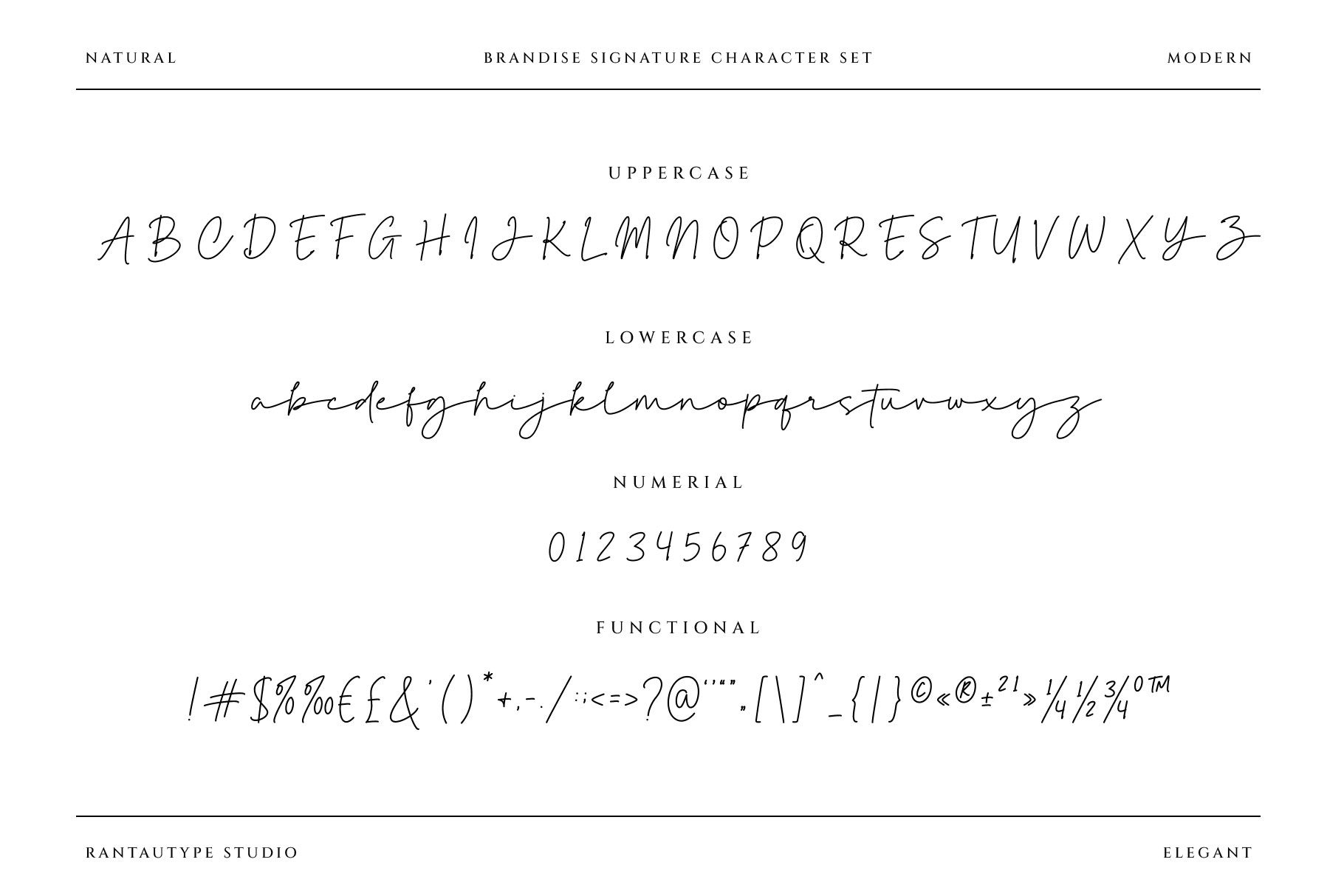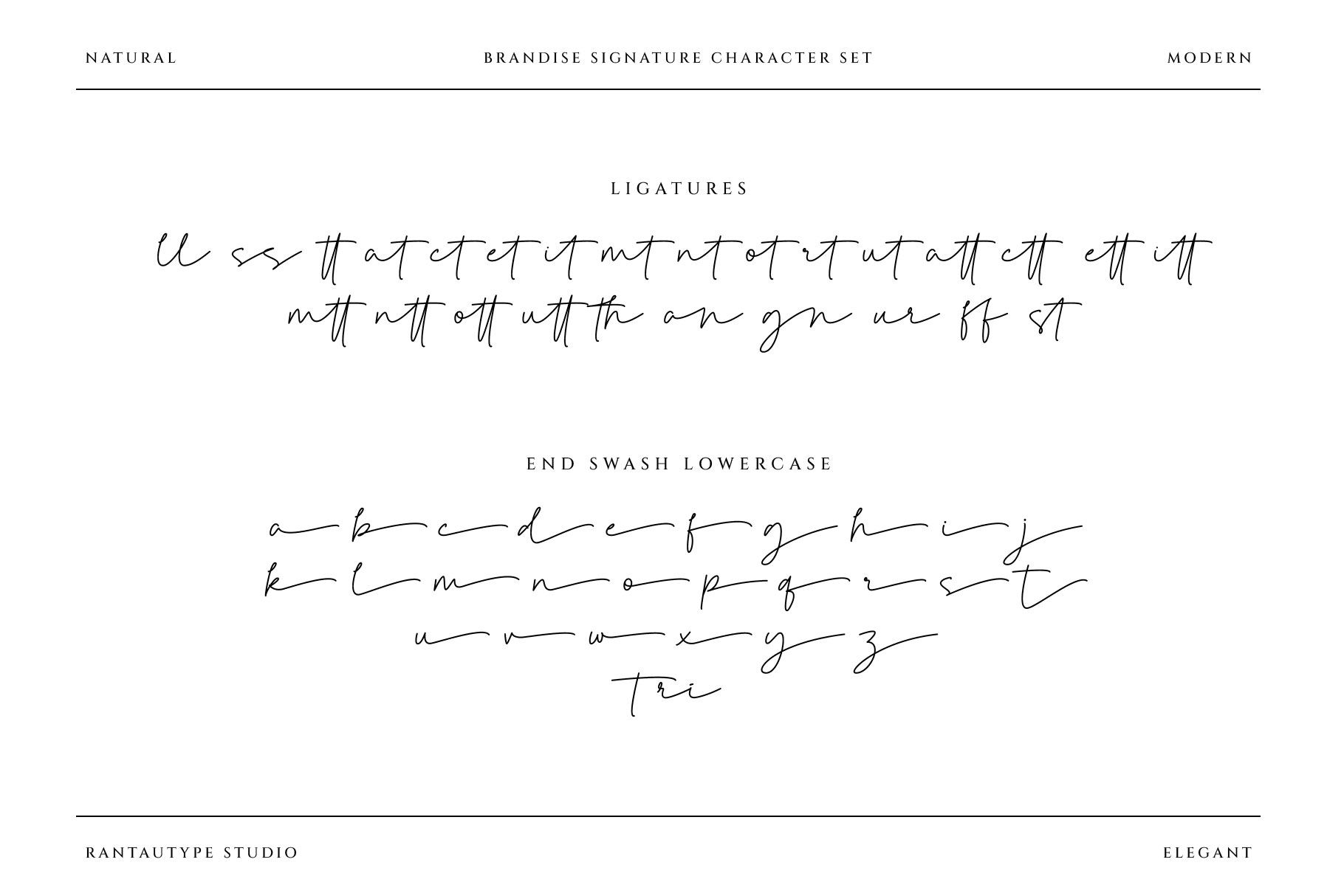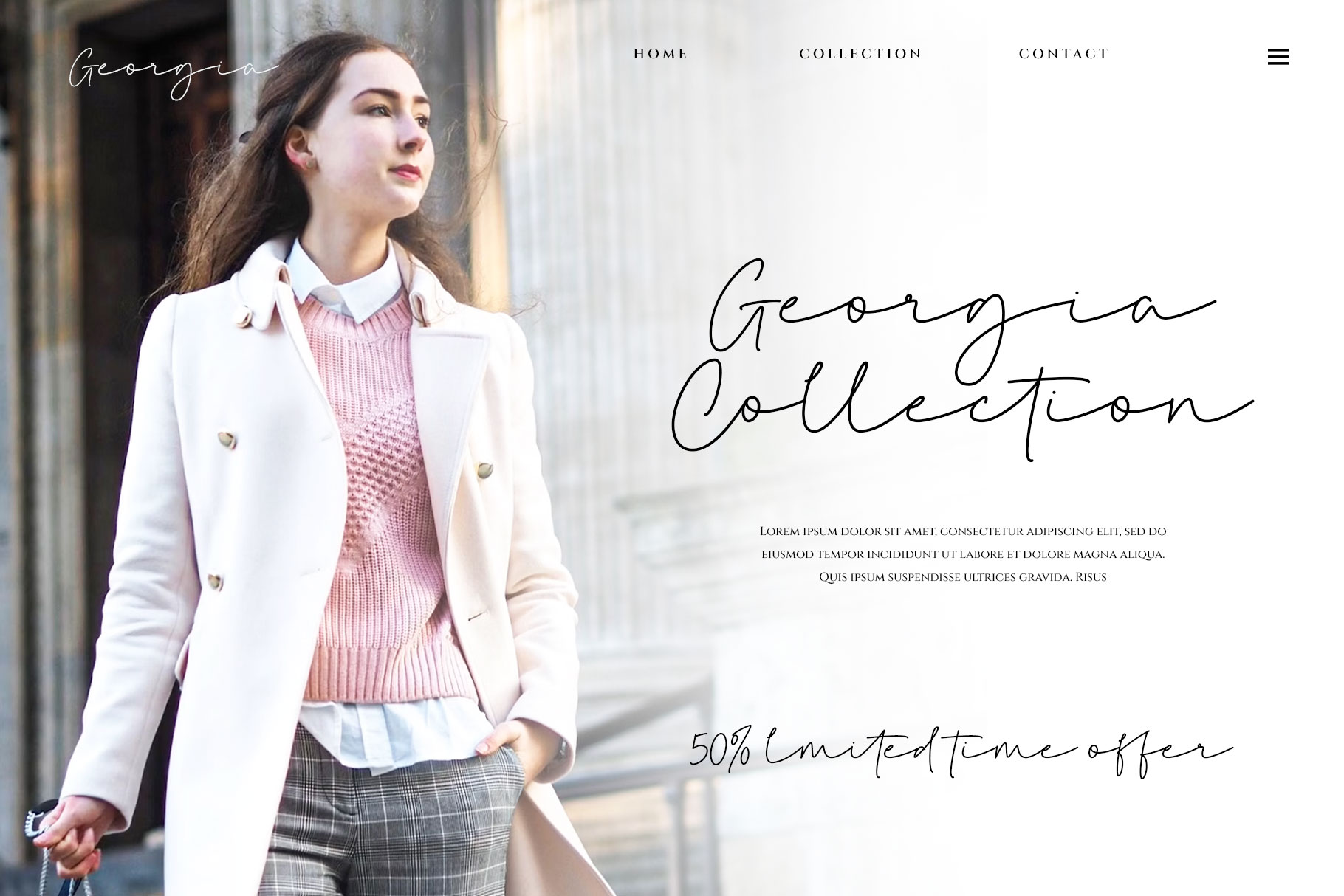
Brandise Signature Font
Brandise Signature is natural signature font with classy look. Brandise Signature make your visual more elegancy, sophisticated and versatile.
Brandise Signature is perfectly choice for any creative endeavor, chic, lifestyle design such as logos, title, watermark on photography, cover, branding, display and magazine, wedding event, corporate brand, quotes, album cover, business card, business project and many other design project with handwritten taste.